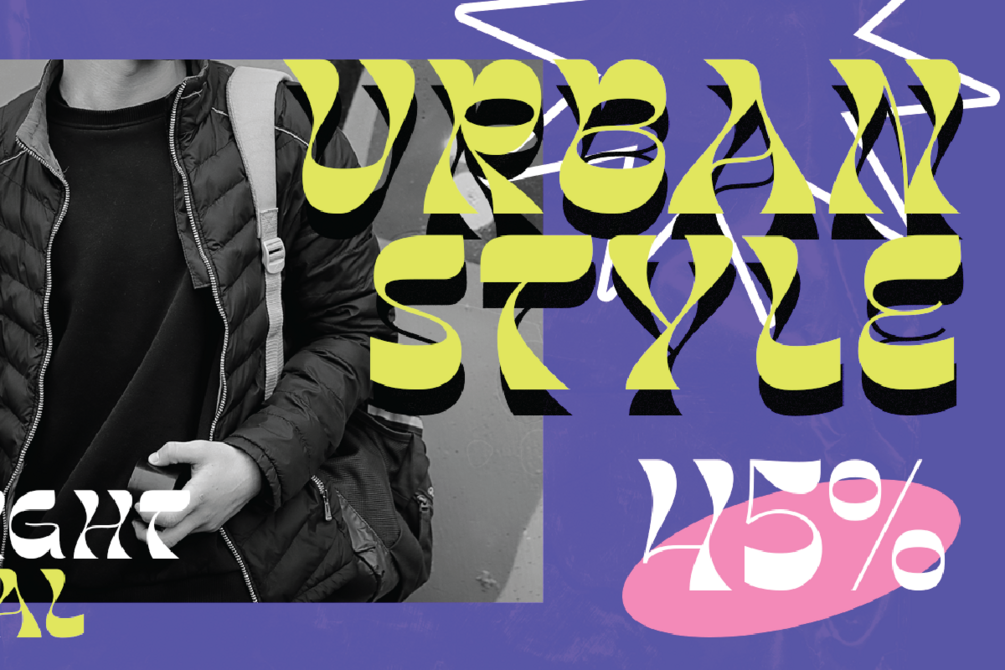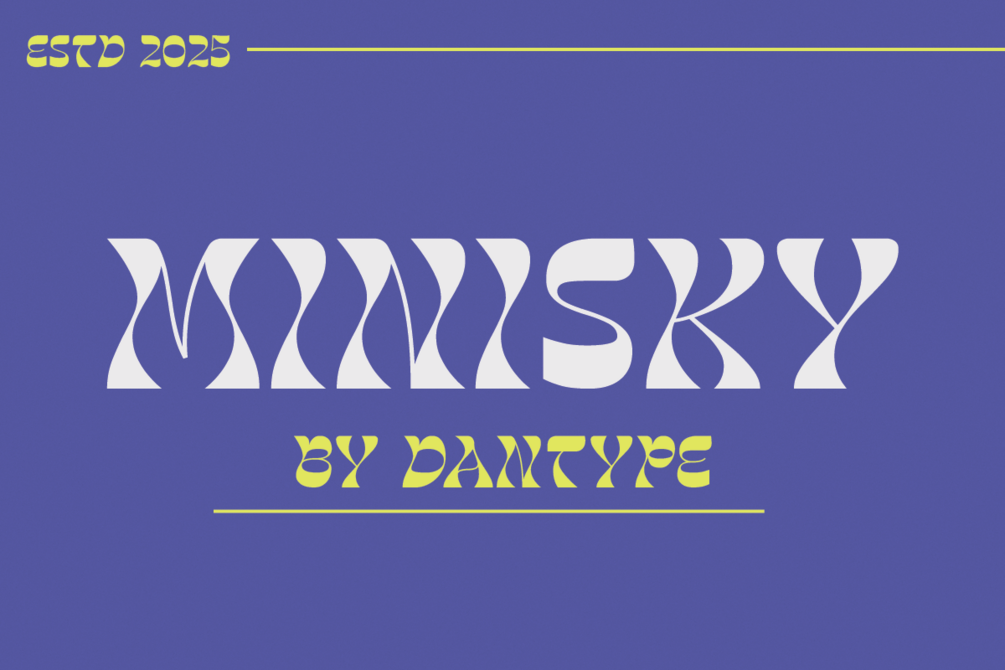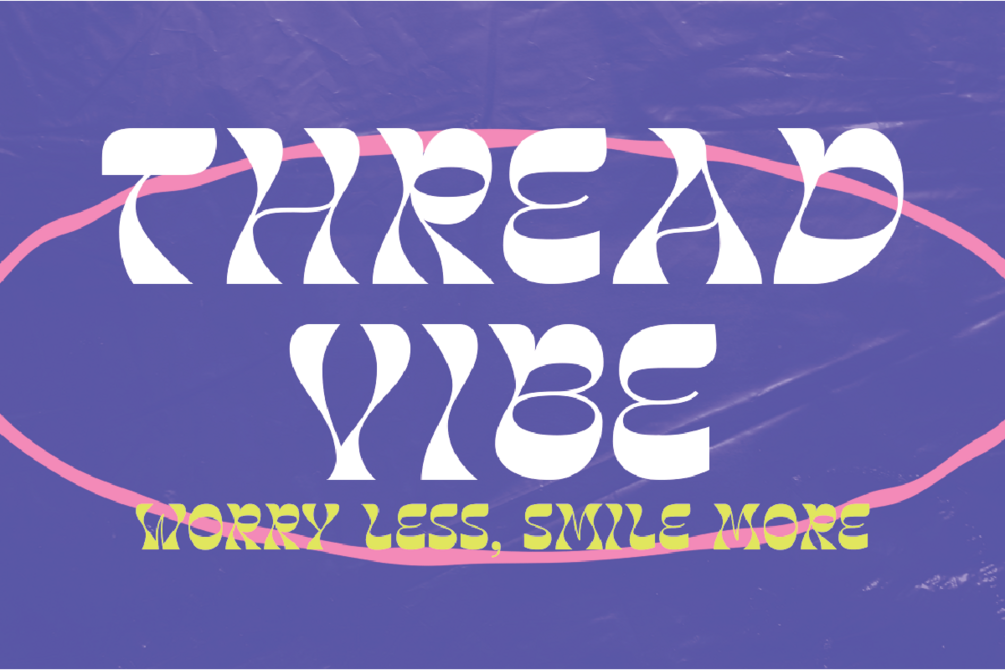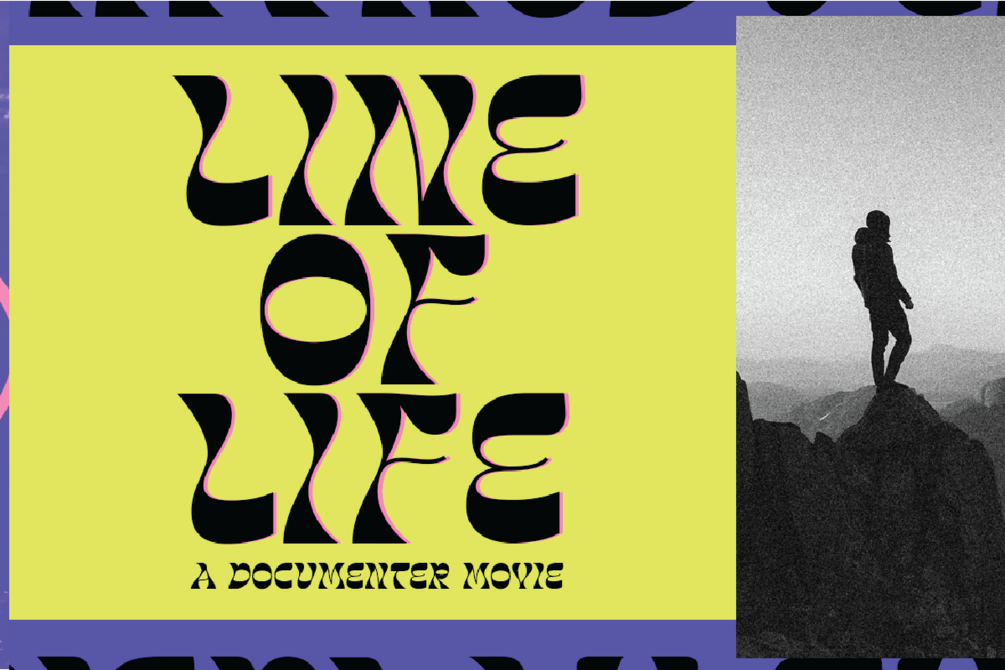
Minsky
Minsky Psychedelic font. This font would be perfect for photography, watermarks, social media posts, advertisements, logos & branding, invitations, product design, labels, stationery, product packaging, special events, and other projects.